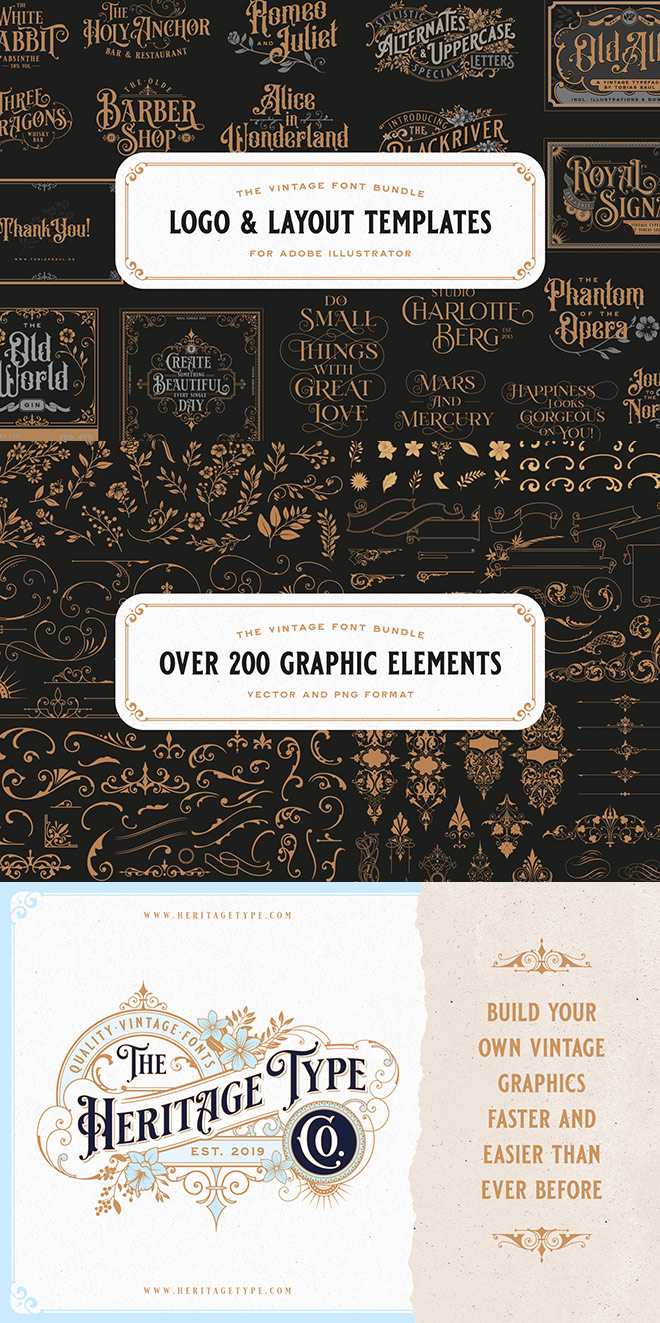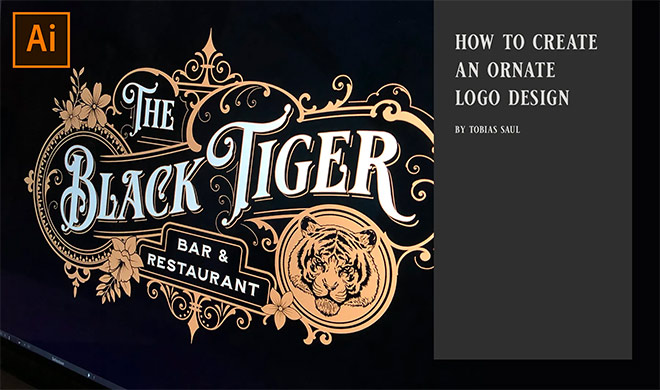
The Best Vintage Fonts Every Designer Needs in Their Toolkit
There are many vintage fonts out there, but not many have been expertly crafted by a talented lettering artist who lives and breathes the vintage aesthetic. The Vintage Font Bundle from Heritage Type Co. contains 6 typefaces designed by Tobias Saul, whose inspirational vintage logos and type designs have been featured many times in showcases on Spoon Graphics. These beautiful fonts authentically capture the style of late 19th to early 20th century lettering and are packed full of features, such as alternate characters, ornamental graphics, and even ready-made logo templates. The bundle is currently on offer with 70% off, but I’ve teamed up with Heritage Type Co. to offer Spoon Graphics readers an extra 10% discount code, making the final price $44 ($149). Use the code SPOONGRAPHICS during checkout to secure the best price around!
The Vintage Font Bundle contains 6 typefaces in a variety of styles that can be used individually or combined to produce perfectly complementing font pairs. It includes the Blackriver font, which is inspired by old packaging designs; Royal Signage, which is based on vintage sign art; the victorian style Old Alfie and its duo Old Erika; Brilon, which is inspired by the Art Deco era; and the elegant Mirosa, which alone has over 400 alternate characters!
Also included in the bundle are 25 ready-made logo templates and type layouts for Adobe Illustrator, plus over 200 ornamental elements and frames so you can easily create your own beautiful vintage style designs.
For an idea of how you could use these fonts and vector assets to create custom artwork, check out this detailed tutorial by Tobias Saul on how to create an ornate logo design, from the initial concept to exporting the final design files. The example design uses the Royal Signage and Old Erika fonts, plus several of the included vector ornaments from the collection to construct a beautiful vintage brand.